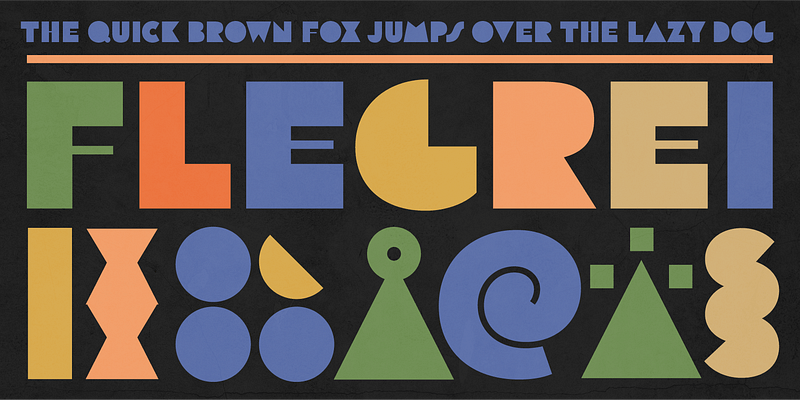
The Tipoteca Series is a family of three typefaces resurrected from the rich wood type collection of the popular letterpress museum and archive Tipoteca Italiana in Cornuda, Italy. This explosive series marks vol. II of Adobe’s Createfulness campaign, following the digital revival of 1920s graphic elements, symbols and pictograms from a handful of European metal type foundries, including Deberny & Peignot, Nebiolo and Trennert & Sohn.
In the spring of 2019, the design team of p98a.berlin rediscovered Tipoteca’s expressive wood type alphabets from various manufacturers, curated a small selection and made letterpress proofs from the original wooden letters for the purpose of restoring them digitally. Berlin-based type designer Ulrike Rausch carefully redrew the alphabets, expanded the character sets and added stylistic alternates as well as other OpenType features.
Flegrei is a geometric expressionist. Constructed from ruler and compass, A and O make a bold statement by simply appearing as triangle and full circle. Flegrei has no enclosed counters, lending all lines of text a black texture and strong contrast between words. Hairlines planted in E, F and H bloom as spots of elegance. Its extended character set includes stylistic alternates, including a Pac-Man-like C, an H with a bold crossbar and a more reasonable, space-saving S. Italians call the @ symbol chiocciola, meaning snail—look at this one and you know why. Let’s be frank, Flegrei is no text typeface, but its charming flat-surfaced appearance cuts a fine line in any title sequence.